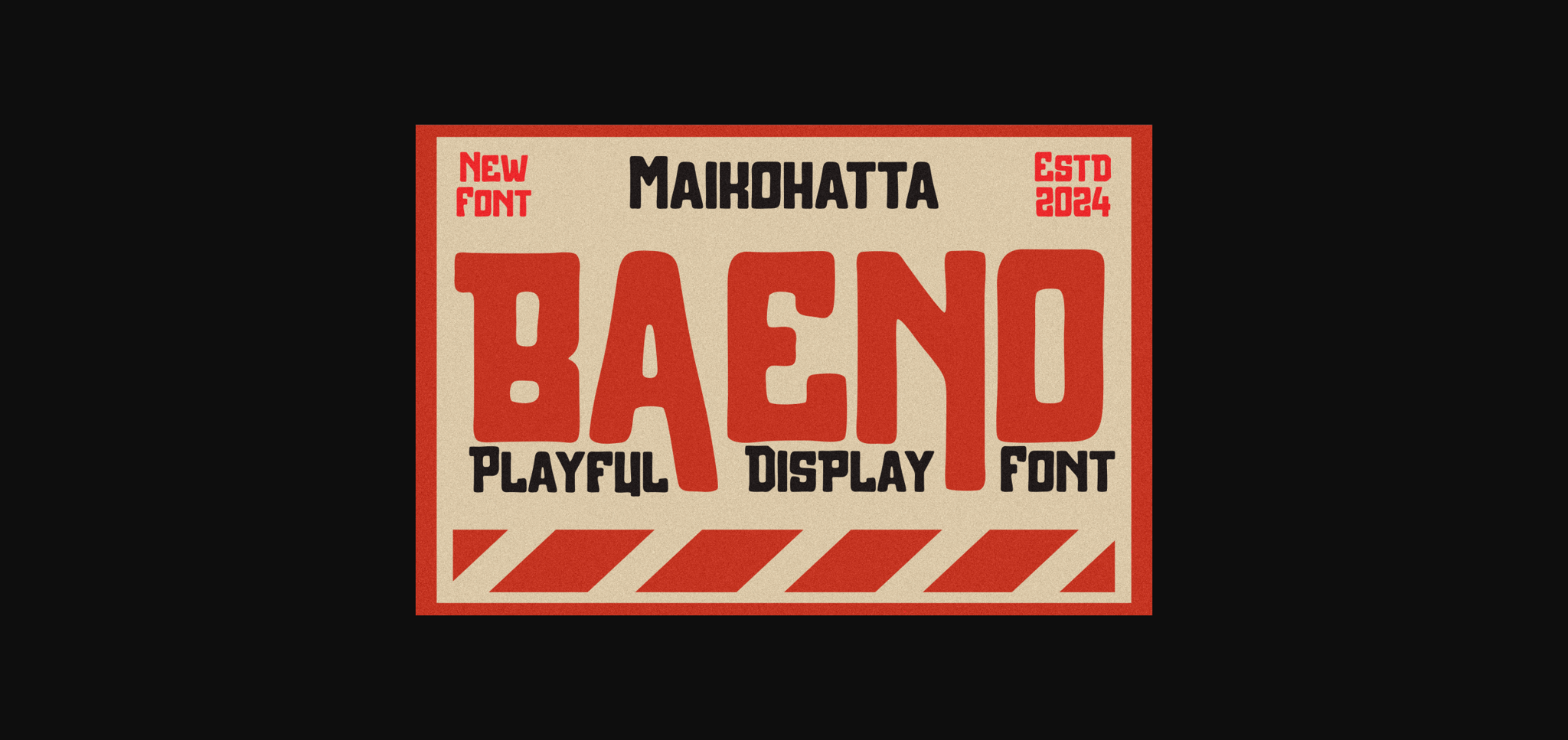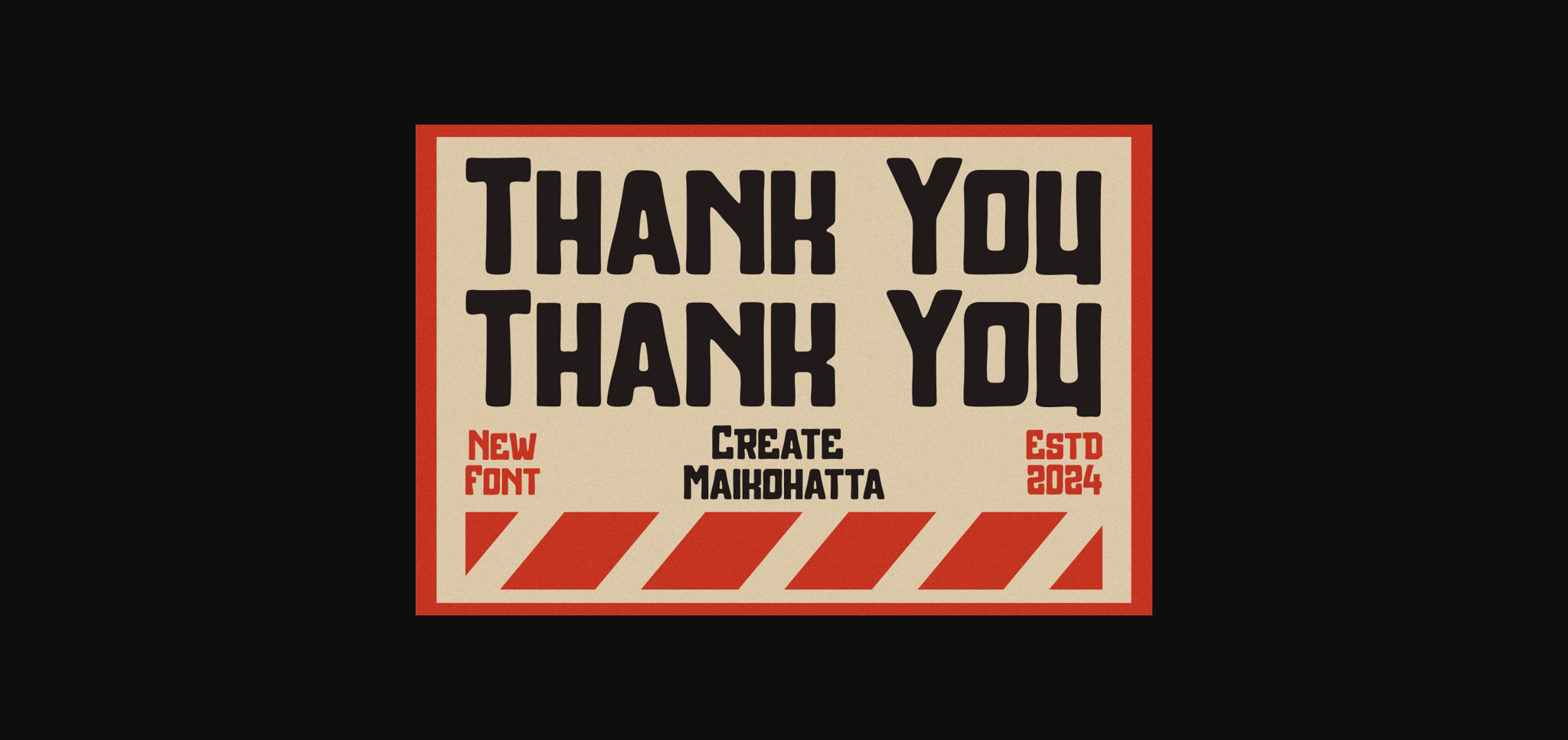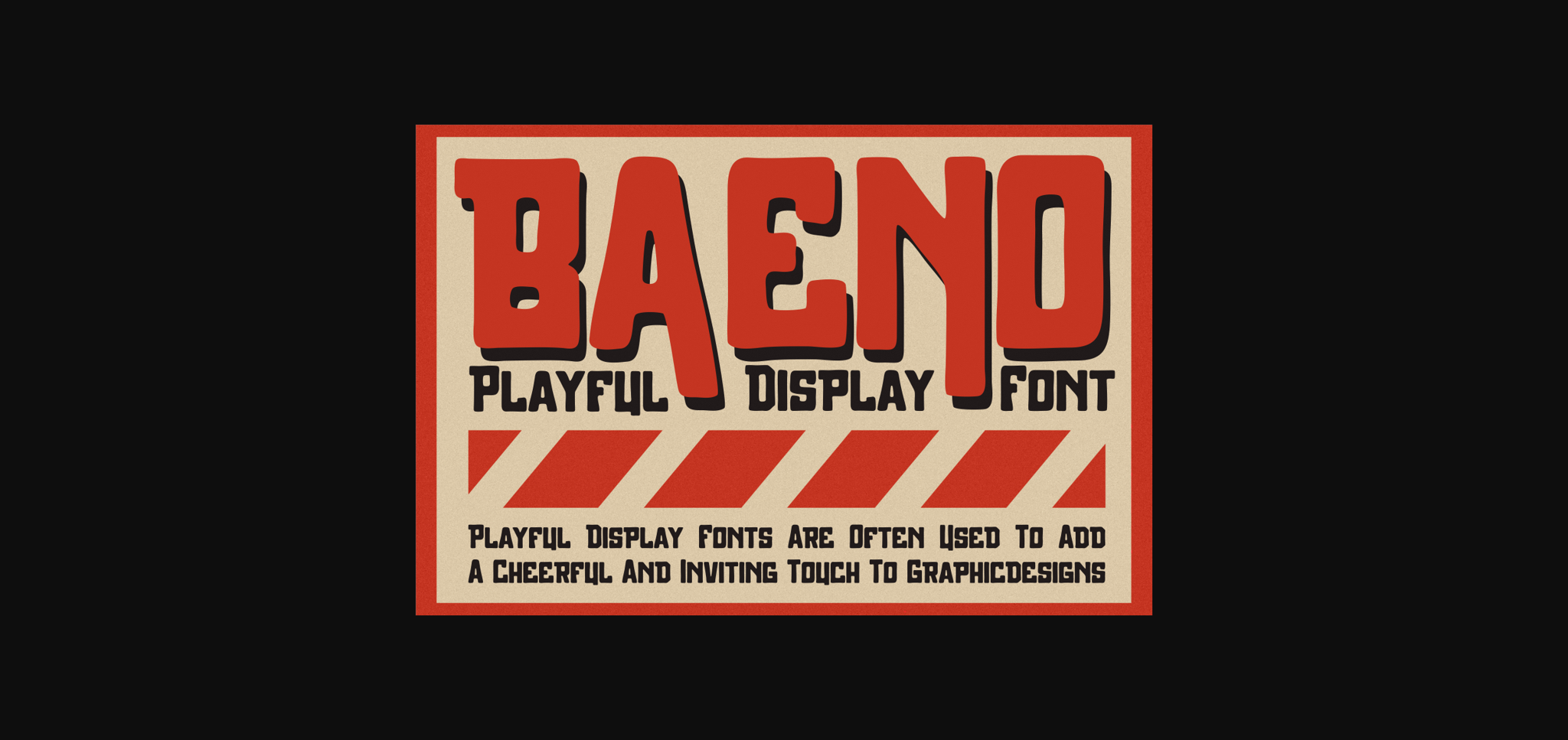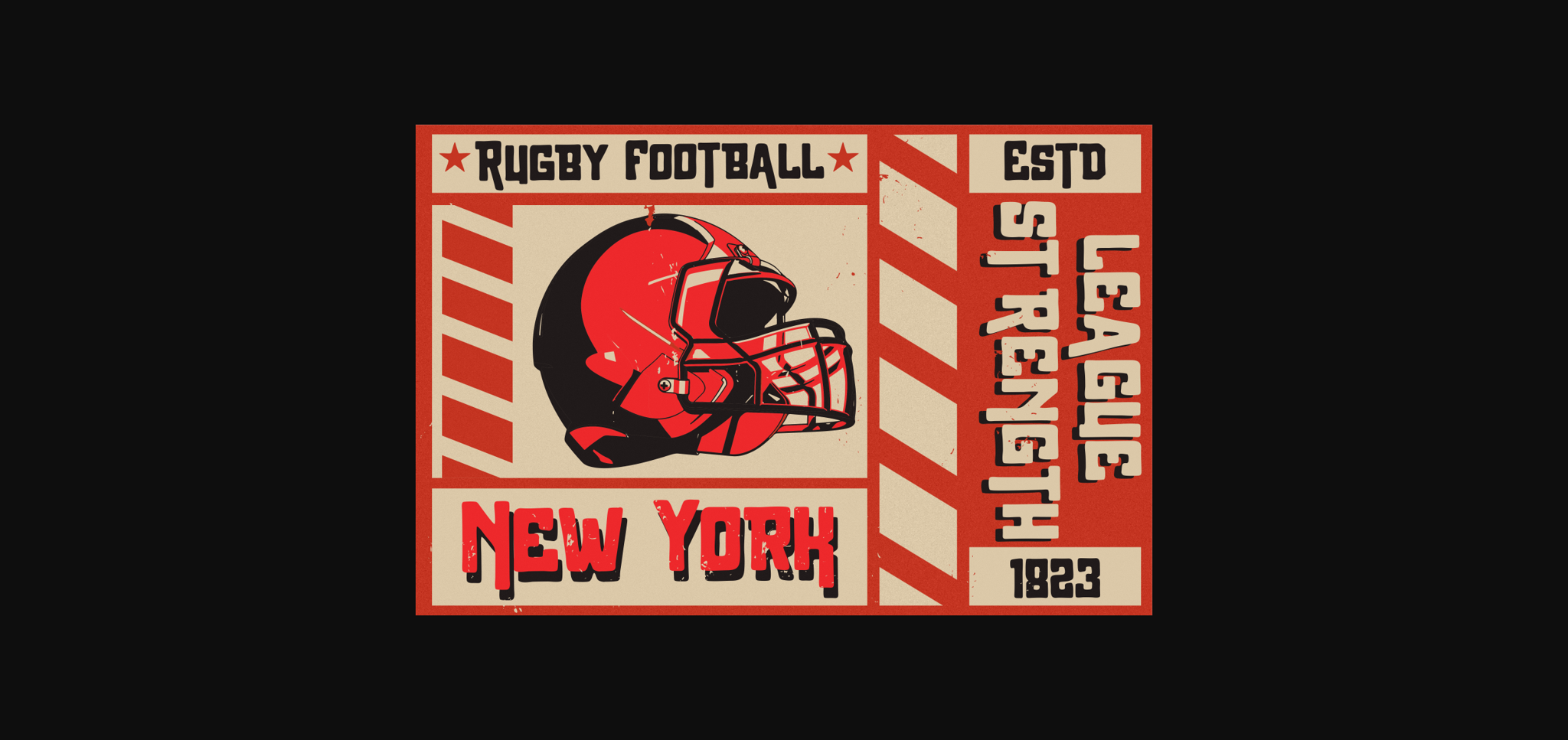
About Baeno Font
Baeno is a vintage-style sans-serif font that evokes nostalgia and timeless charm. Its clean lines and subtle quirks capture the essence of retro design while maintaining modern readability. Perfect for vintage-inspired branding, posters, and editorial projects, Baeno adds a touch of classic elegance to any visual composition.